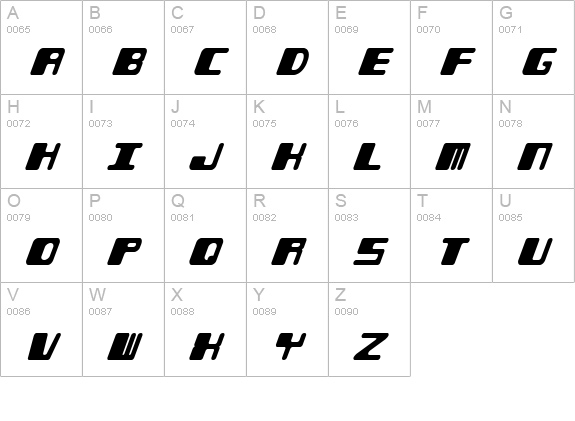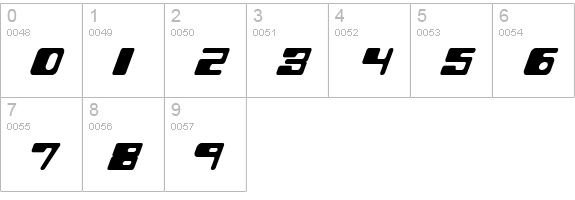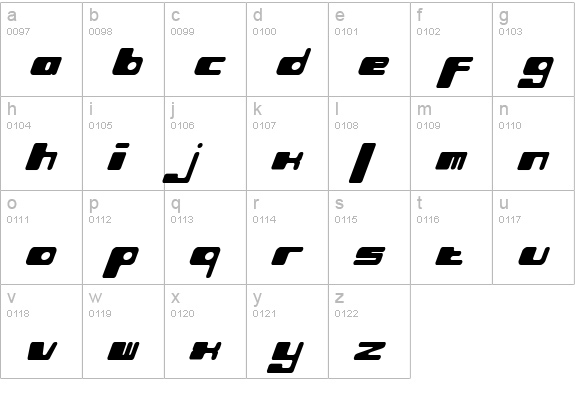
Phorfeit (BRK) Font Details
Phorfeit (BRK) font, a breathtaking display typeface, is a true masterpiece that effortlessly combines elegance with an edgy twist. The intricate details of each letter form exude a sense of sophistication, making it ideal for any creative project that seeks to leave a lasting impression. With its bold and assertive strokes, Phorfeit (BRK) commands attention and demands to be noticed. Its unique design elements make it stand out from the crowd, setting it apart as a font that is both contemporary and timeless. What makes Phorfeit (BRK) even more exceptional is the fact that it is completely free. Yes, you read that right! This exceptional font is freely available to download at FontsMarket.com. Now, you can add a touch of elegance and style to your designs without breaking the bank. Whether you're designing a logo, creating eye-catching headlines, or crafting a visually striking poster, Phorfeit (BRK) will be your go-to font. Its versatility allows it to adapt effortlessly to any project, giving you the creative freedom to express your unique vision. Download Phorfeit (BRK) today from FontsMarket.com and unlock a world of endless design possibilities. Let this remarkable font be your secret weapon in creating stunning visuals that captivate and inspire. Experience the power of Phorfeit (BRK) and elevate your designs to new heights.